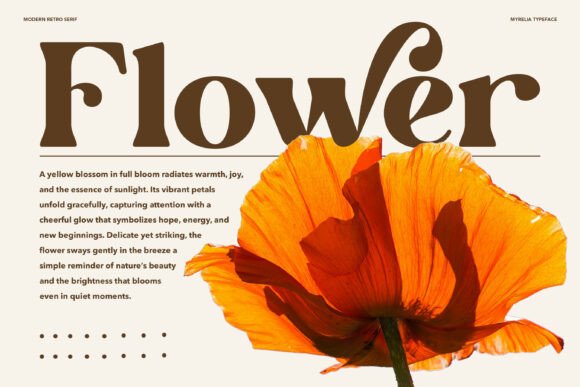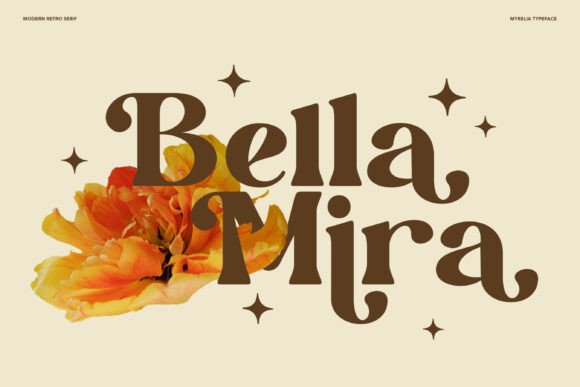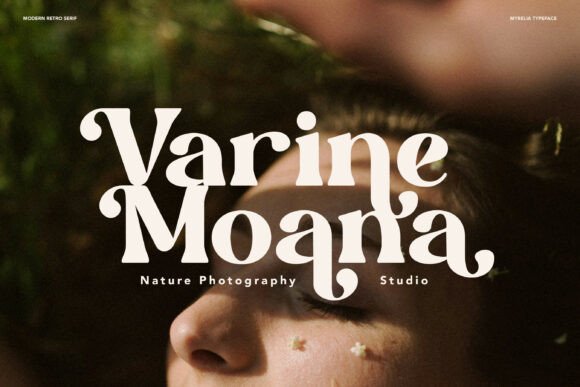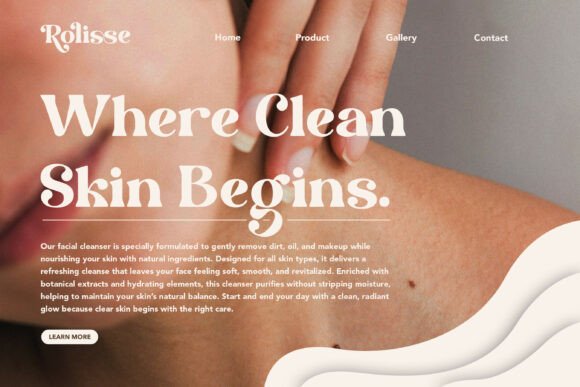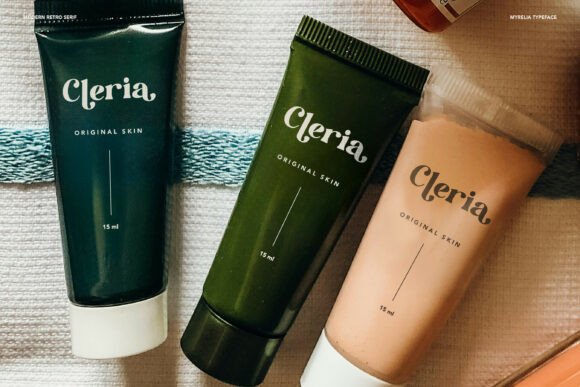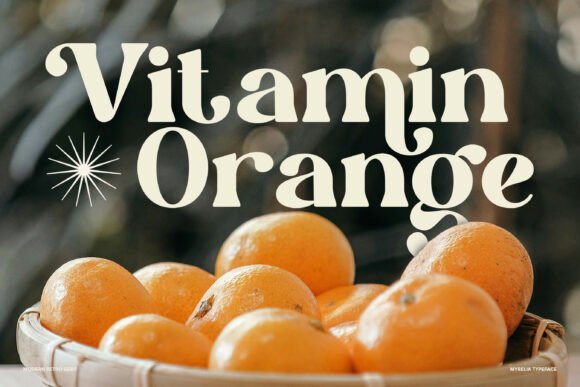
Introduction to Myrelia Font
As designers, we’ve all been there – staring at a blank page, struggling to find the perfect font to bring our creative project to life. The search can be daunting, especially when you’re looking for a font that exudes sophistication and timeless charm. But what if I told you that there’s a design resource that can make your life easier? Say hello to Myrelia Font, a modern retro serif typeface that’s about to become your new best friend.
With its bold curves and vintage elegance, Myrelia Font is the perfect choice for logos, magazine titles, posters, packaging, and brand identities. Its high-quality design is not only visually stunning but also incredibly versatile, making it a valuable addition to any designer’s toolkit. And the best part? You can download it for free, giving you the creative freedom to experiment and push the boundaries of your next project.
- Unique, elegant design with a modern aesthetic
Honest Review: Myrelia Font
As a designer, I’m always on the lookout for high-quality design resources to elevate my creative projects. The Myrelia Font is one such find that has caught my attention. In this review, I’ll share my thoughts on what works well and where it falls short.
- Wide range of styles: The Myrelia Font offers a diverse set of styles that can be used for various design projects, from elegant headings to simple body text.
- High-quality glyphs: The font’s glyphs are well-designed and exhibit excellent clarity, making it suitable for use on both digital and print materials.
- Limited transparency options: The Myrelia Font doesn’t offer advanced transparency features, which may be a limitation for designers who need to use it on a transparent background.
Overall, I’m impressed with the Myrelia Font’s versatility and quality. While it may not be perfect, it’s an excellent addition to any designer’s toolkit. If you’re looking for a reliable font for your creative project, the Myrelia Font is definitely worth considering.
Tips for Getting the Most Out of Myrelia Font
To get the most out of the Myrelia Font, use it in combination with other design elements to create a cohesive and visually appealing design. Experiment with different font sizes, colors, and arrangements to find the perfect balance for your creative project.
Common Use Cases for Myrelia Font
The Myrelia Font is perfect for a wide range of creative projects, including business cards, brochures, posters, and presentations. Its high quality and transparent background make it an ideal choice for designers who want to create professional-looking designs without any background distractions.